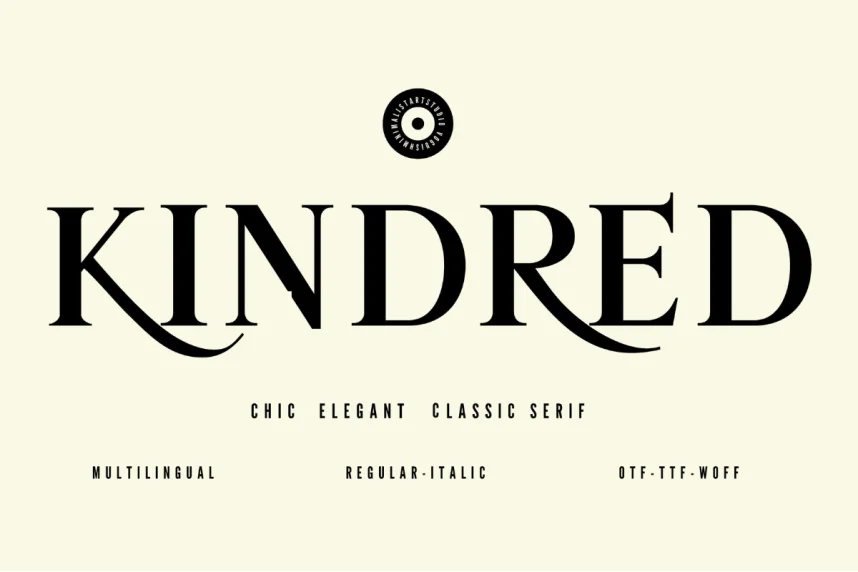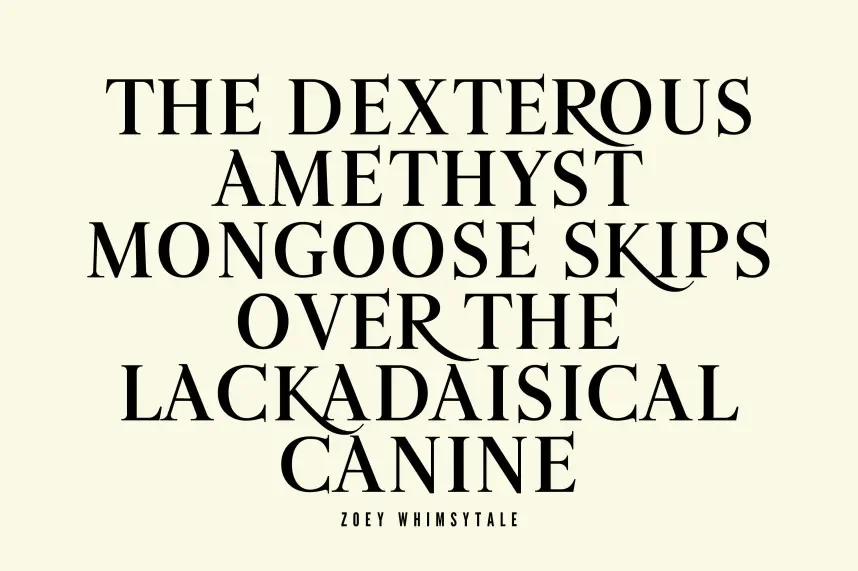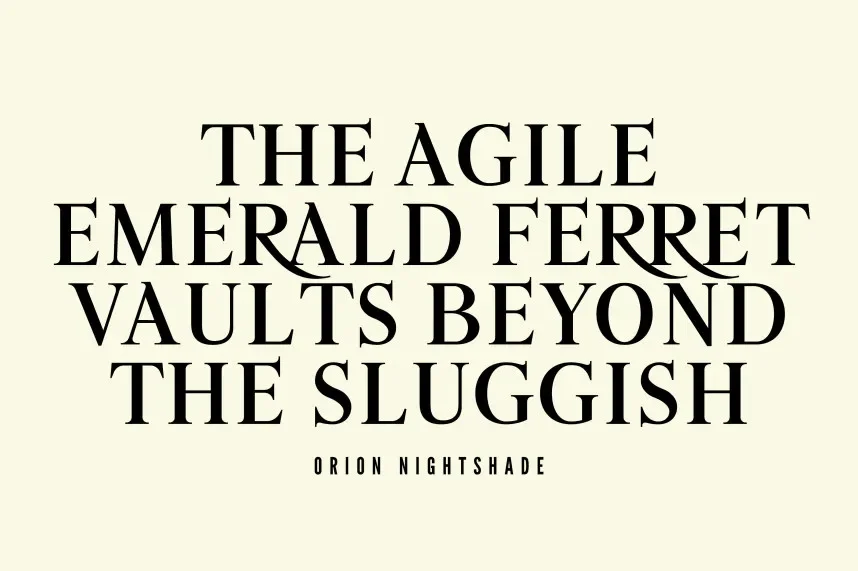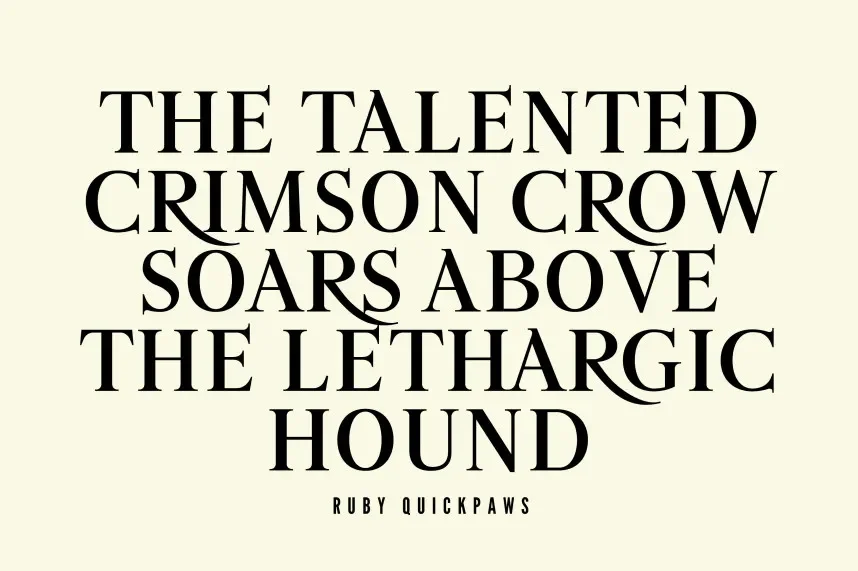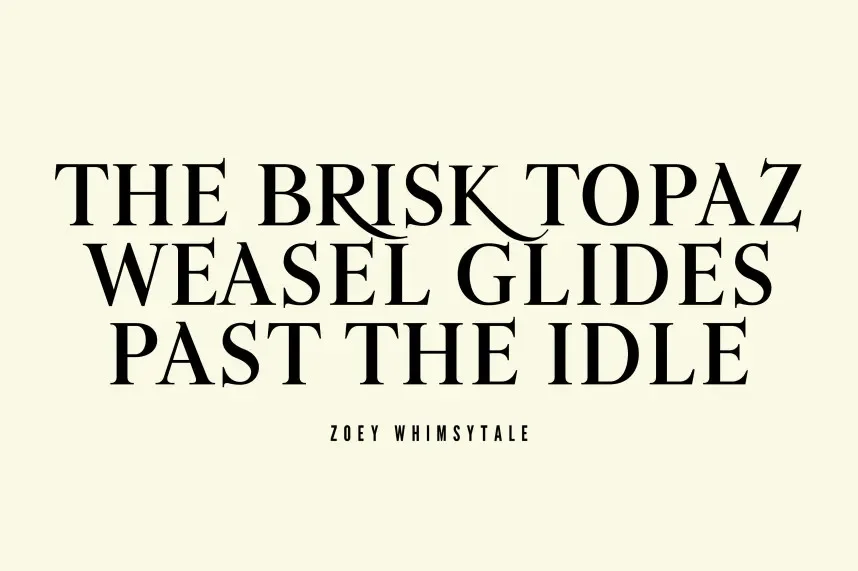
Kindred Font is a modern serif typeface with elegant curves and high contrast between thick and thin strokes. Its classic design makes it perfect for luxury branding, editorial projects, and invitations that require a refined, timeless look.